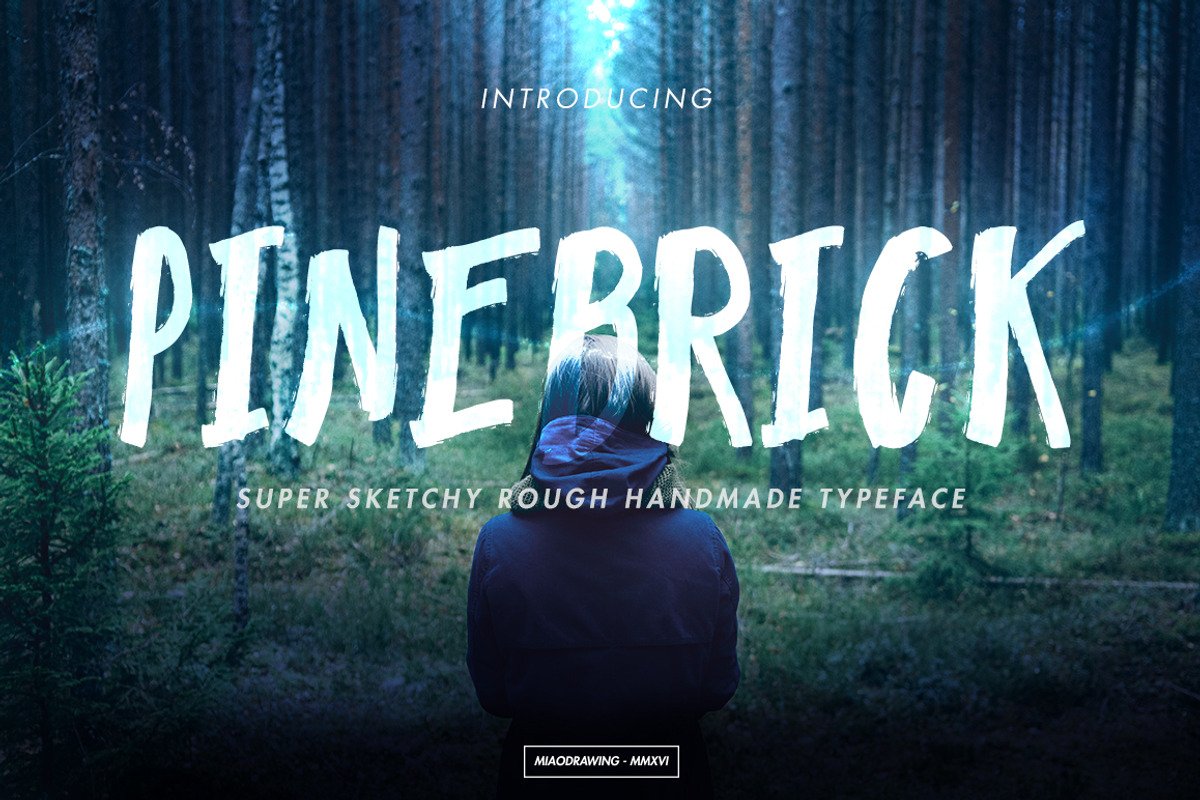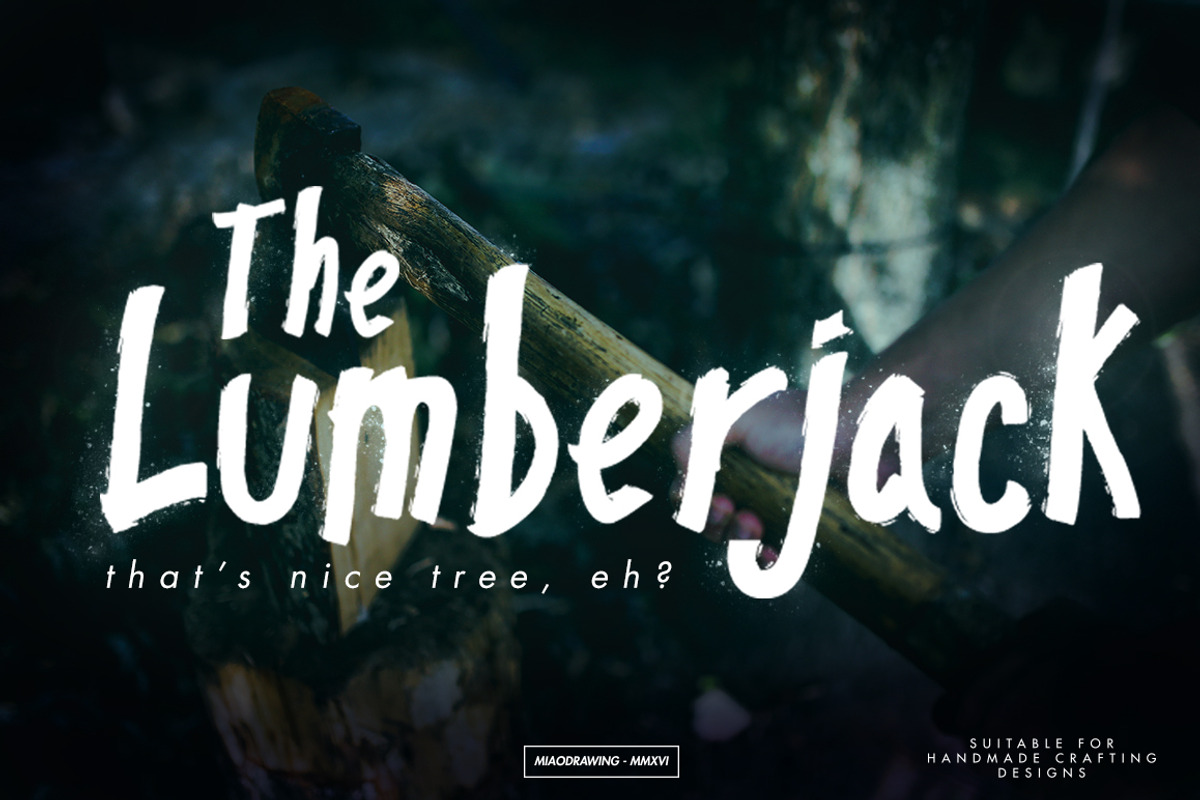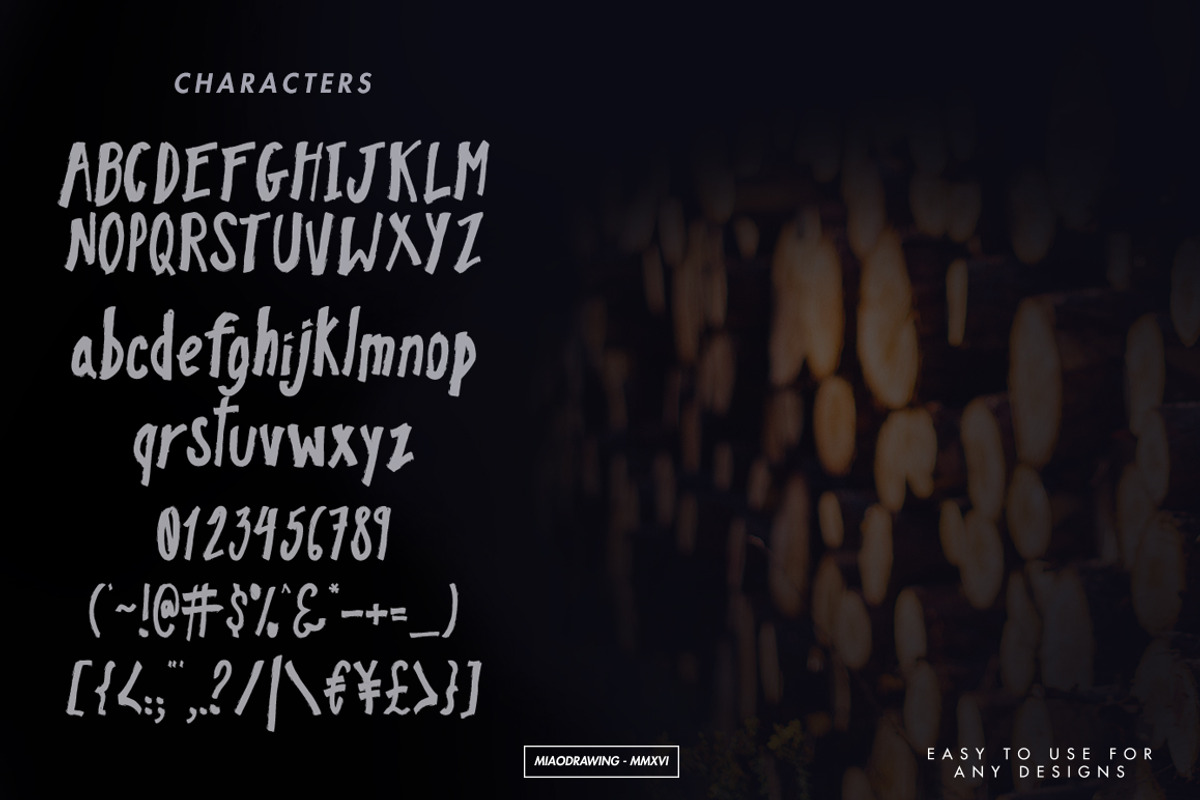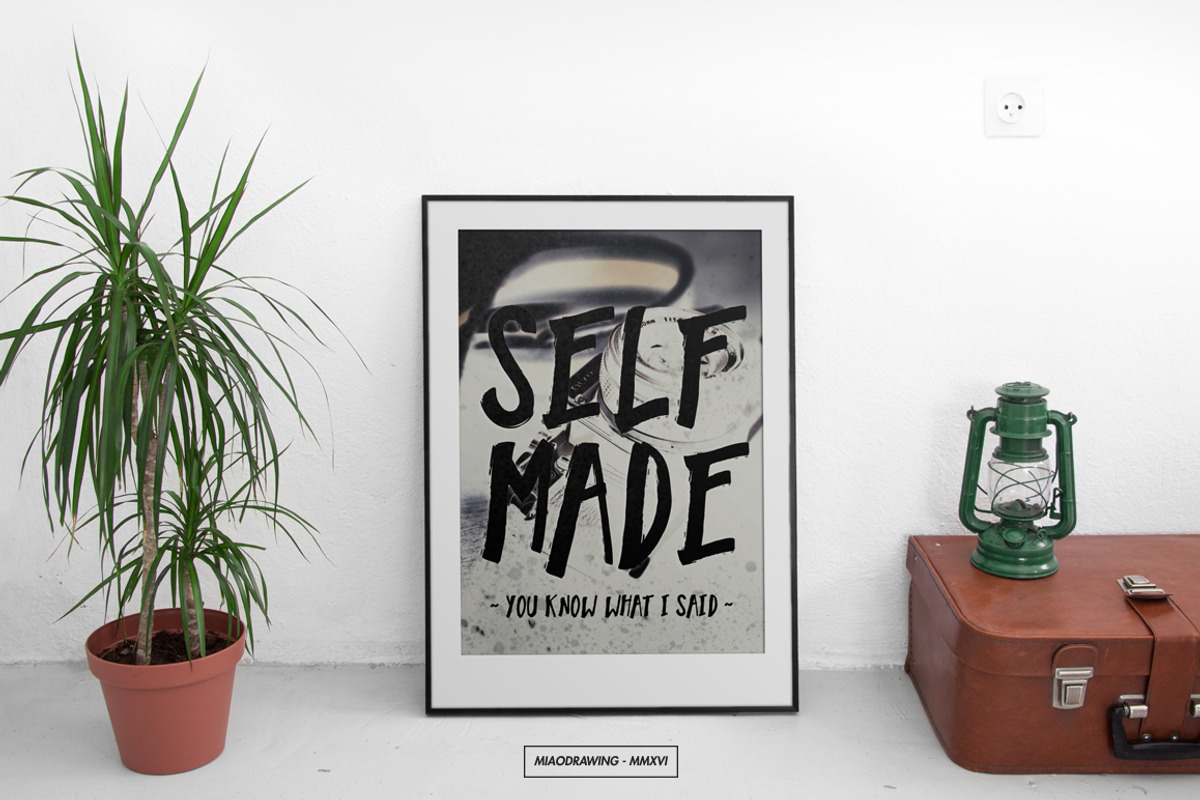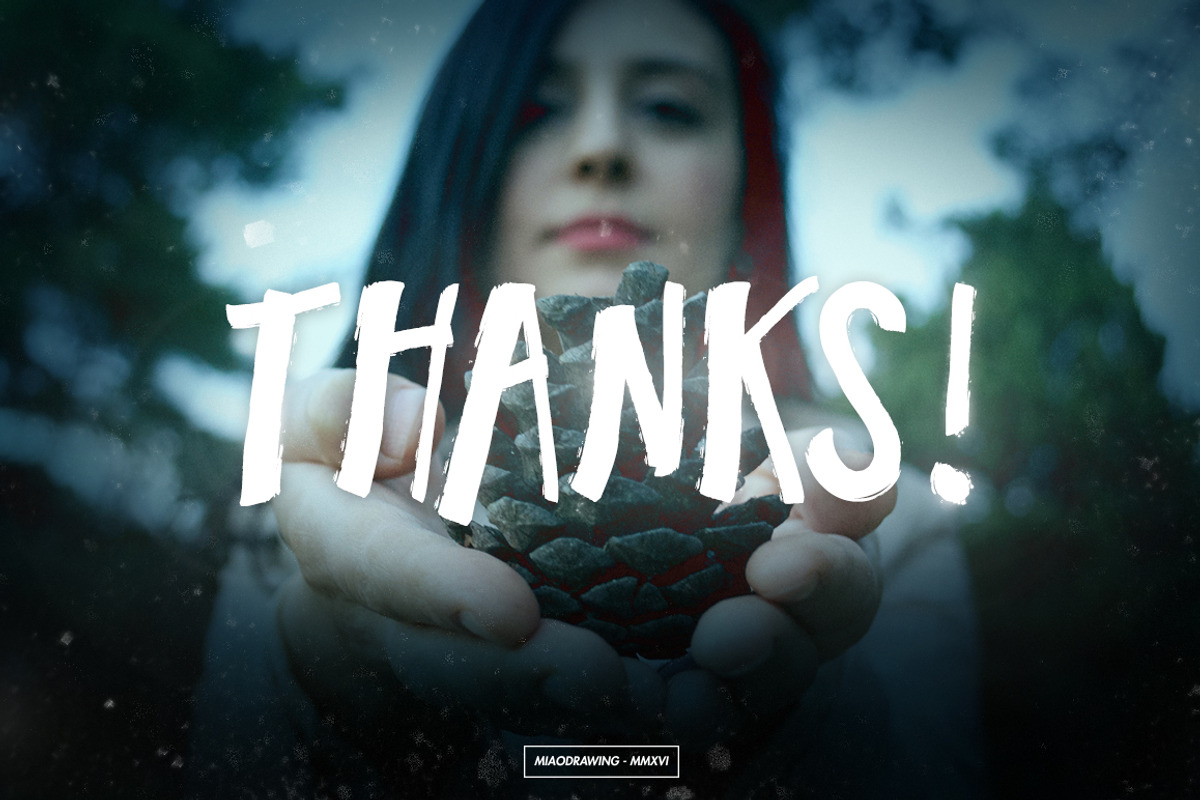
Pinebrick Typeface
Pinebrick Typeface by Gumico Studio. is a font selected for branding, posters, packaging, typography.
Why Pinebrick Typeface is worth a look
Pinebrick Typeface by Gumico Studio. fits naturally into Branding, posters, packaging, typography.